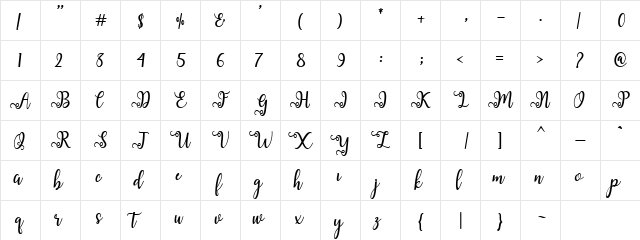
Sallma Regular
| Foundry | Creative LAB |
Design Context for Sallma Typeface
Sallma is a composed and adaptable typeface that performs quietly and consistently across a wide range of design contexts.